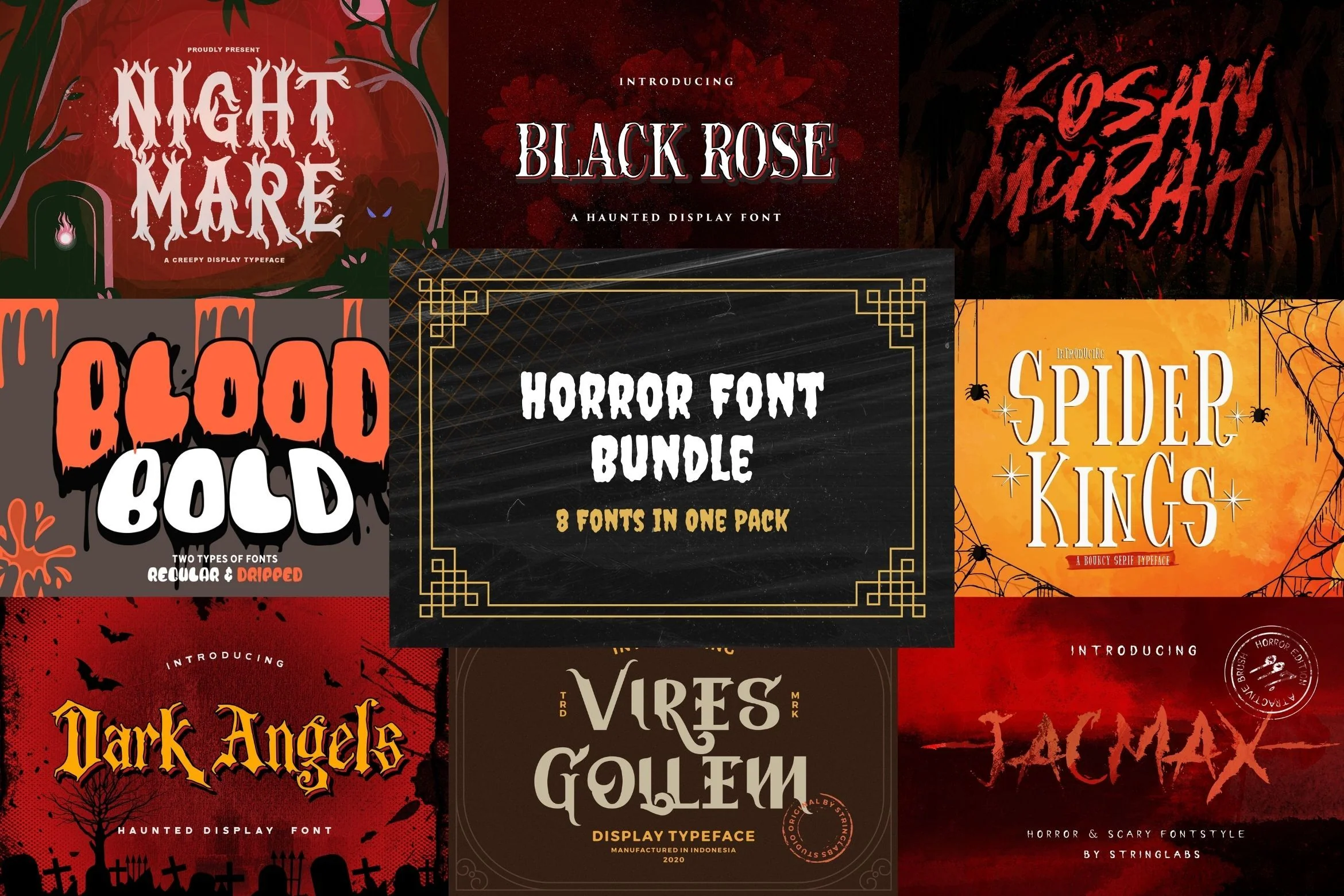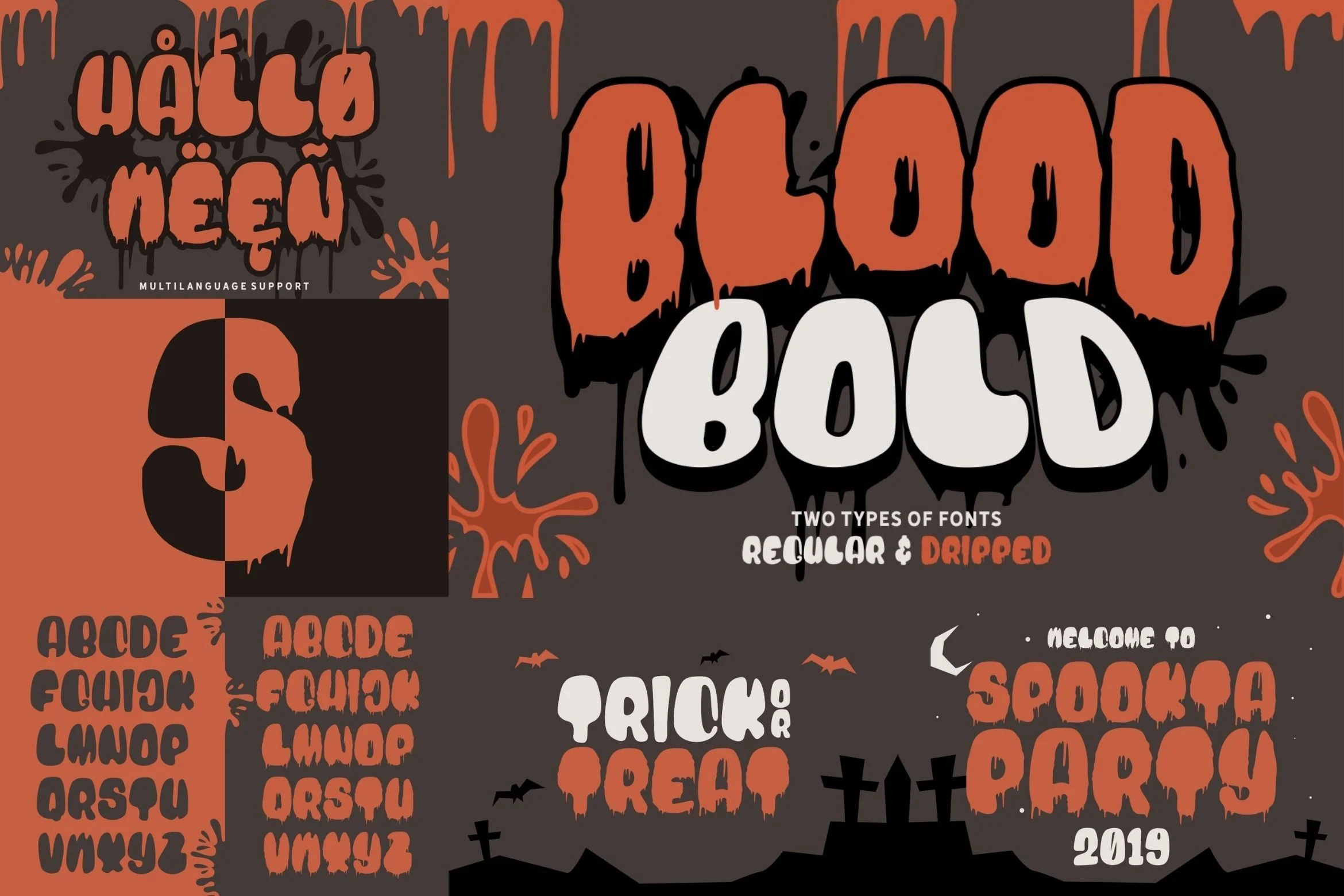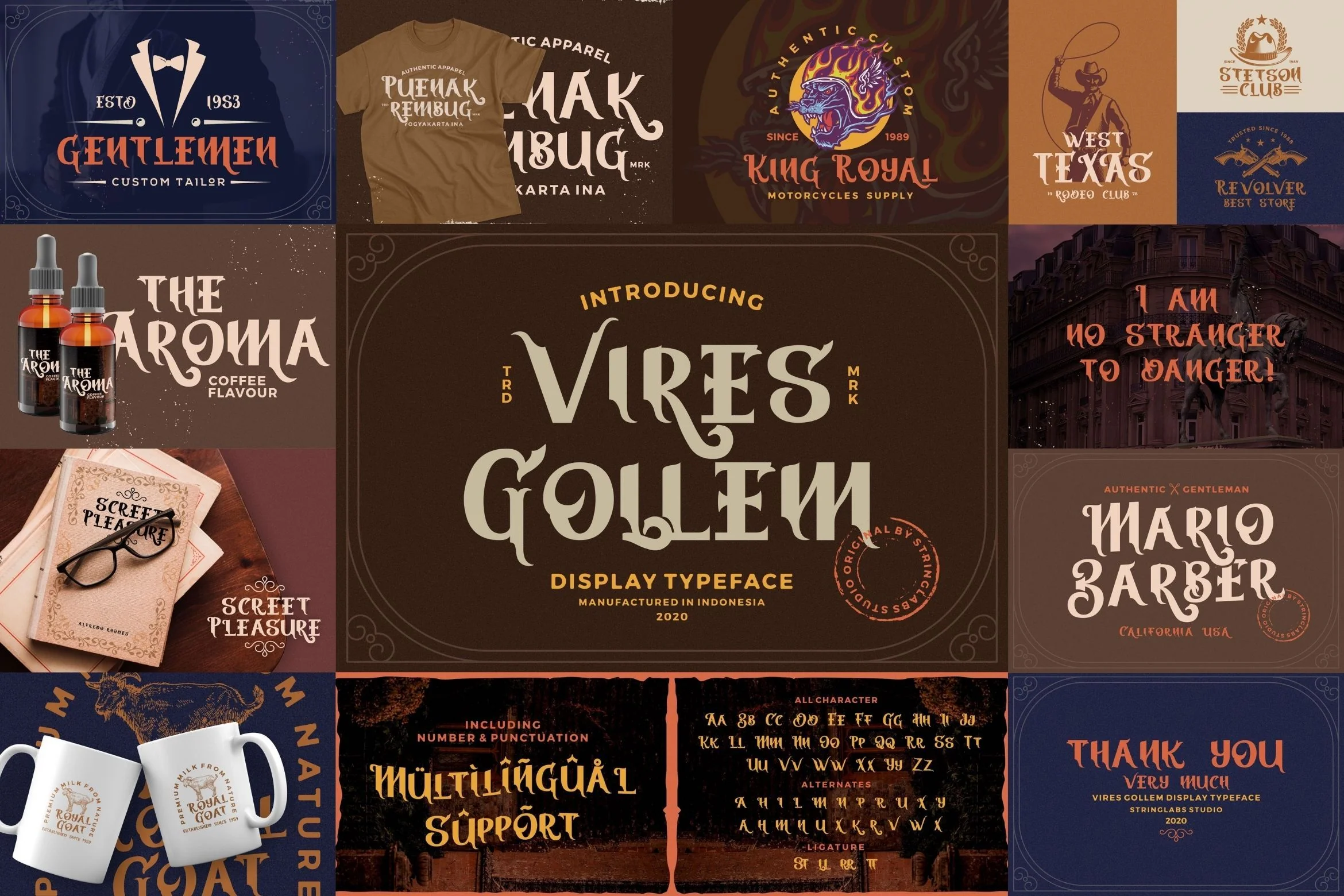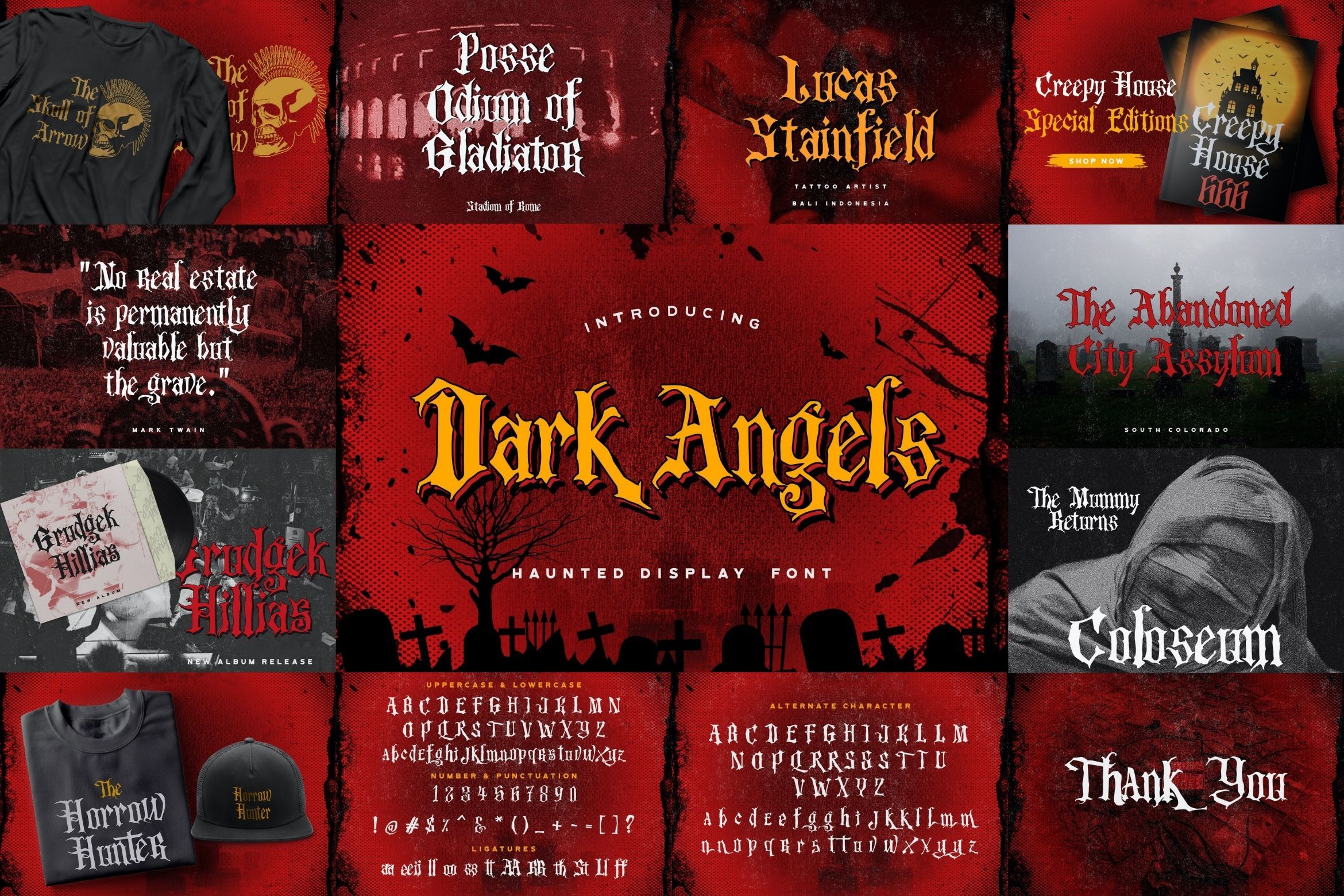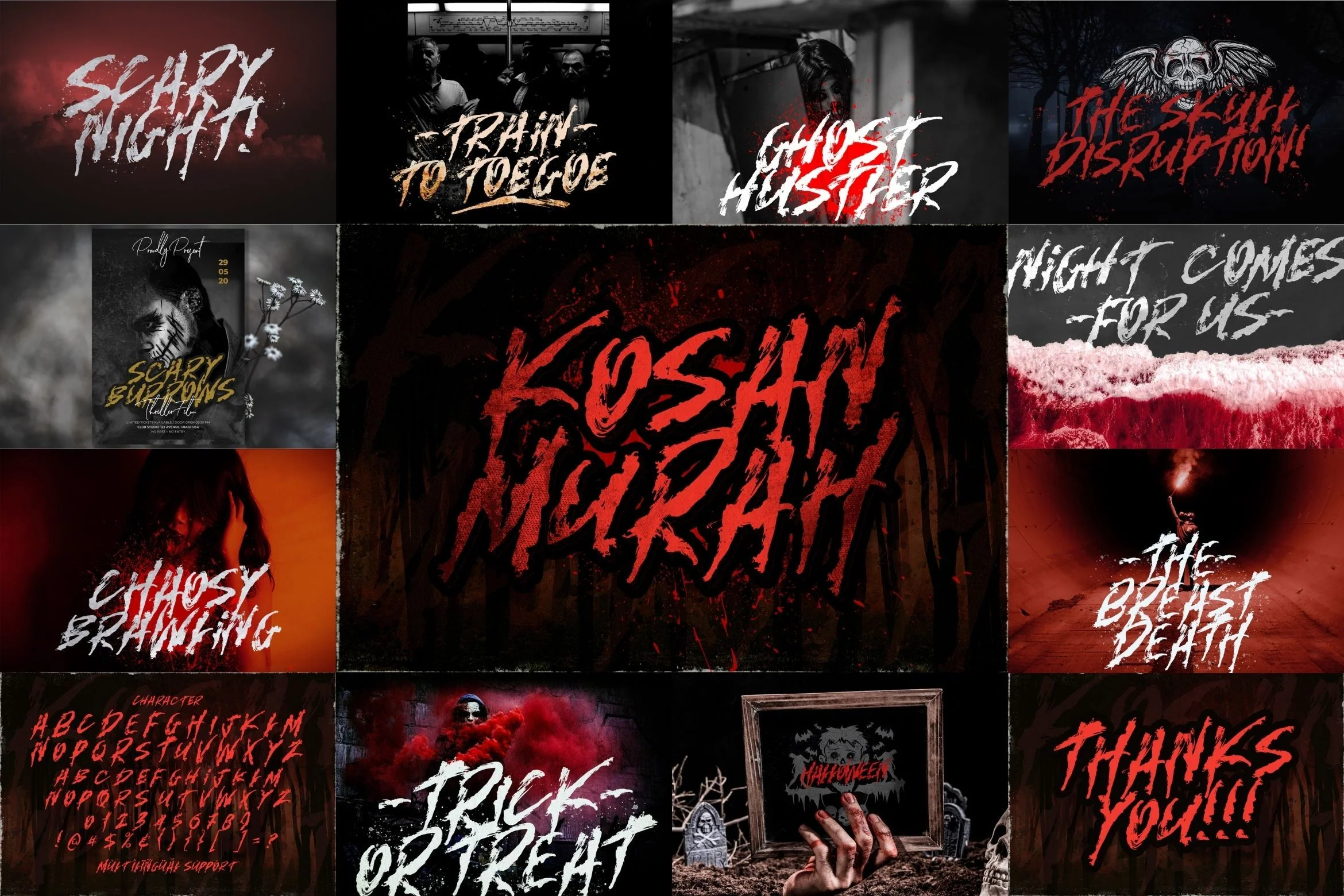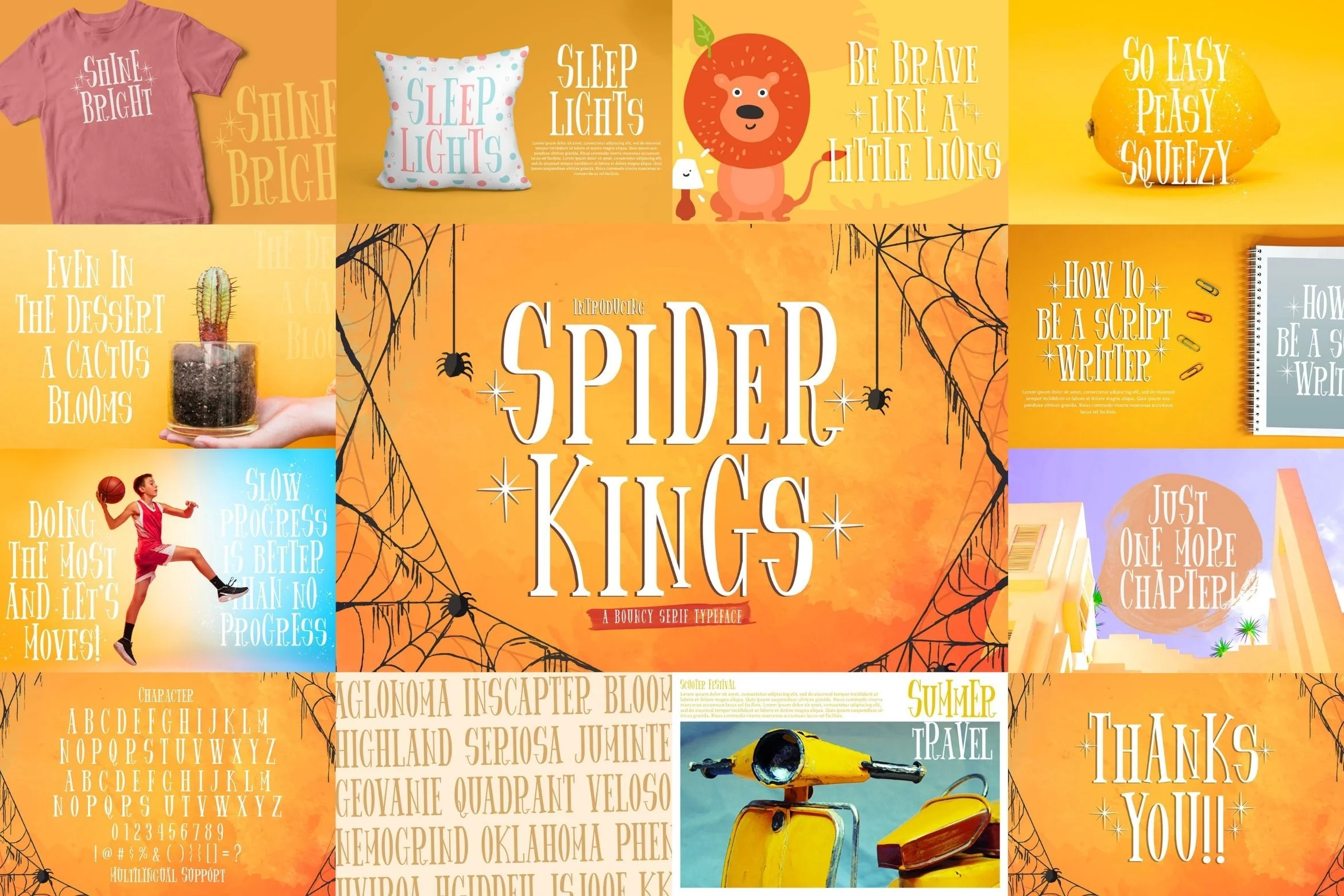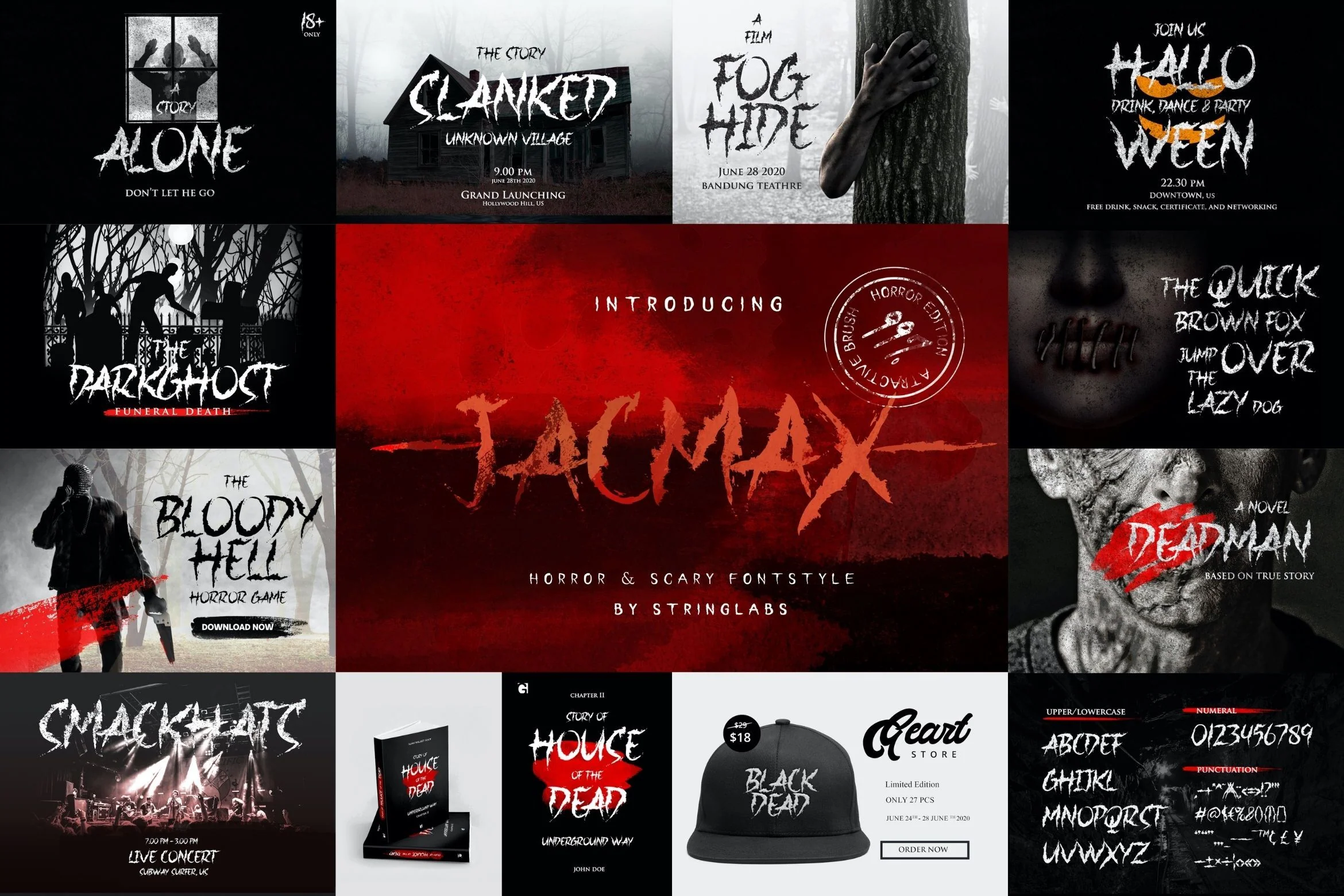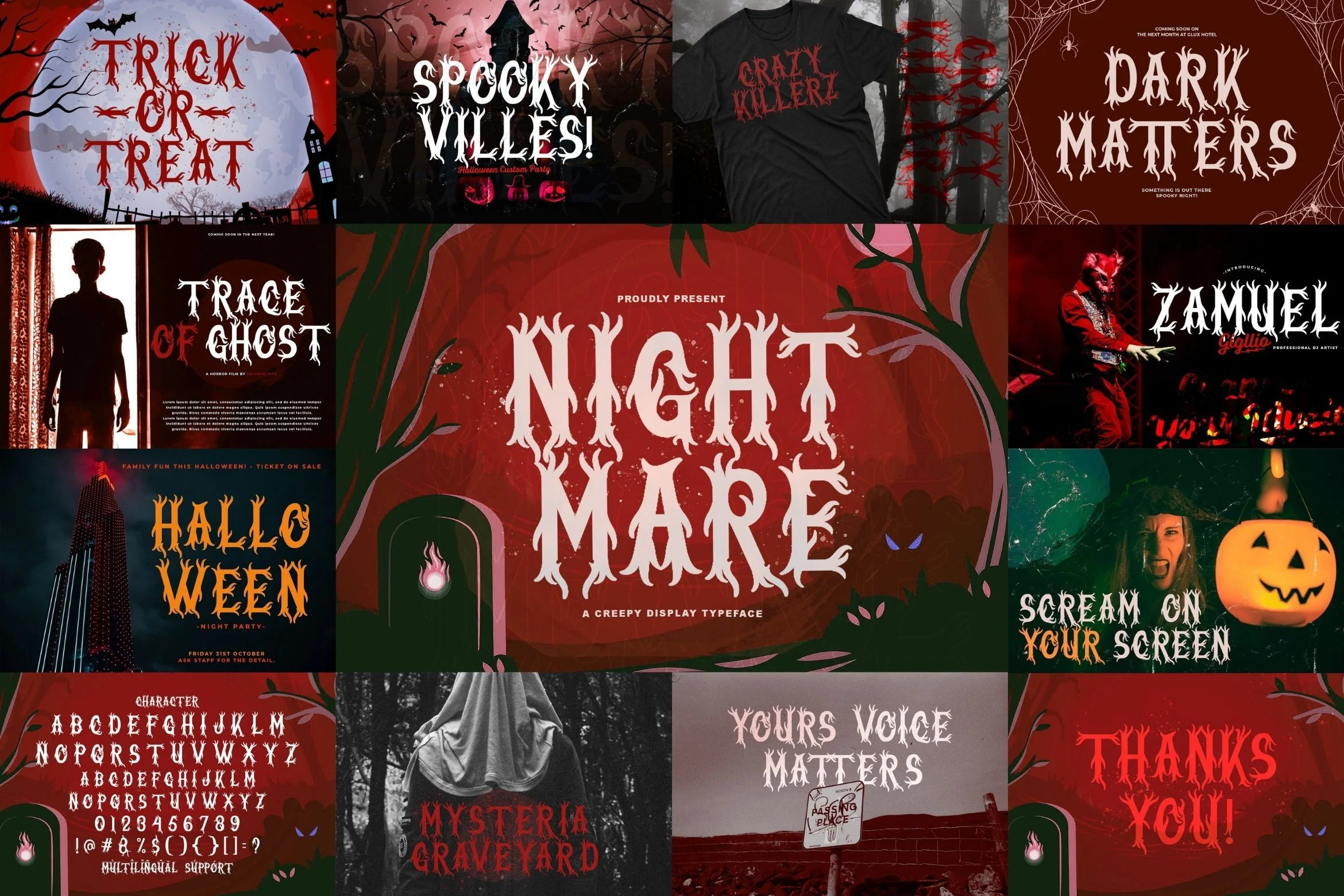
Horror Font Bundle
Introducing Horror Font Bundle. This font bundle contains 8 high quality horror, decorative, scary, and gothic fonts with unique variation styles. The Horror Font is perfect for your horror projects, such as: Movie Poster, Lettering on Cover Books, Album music cover, Logo Brand, and much more.
1. Nightmare
2. Jacmax
3. Spider King
4. Kosan Murah
5. Dark Angels
6. Black Rose
7. Vires Gollem
8. Blood Bold